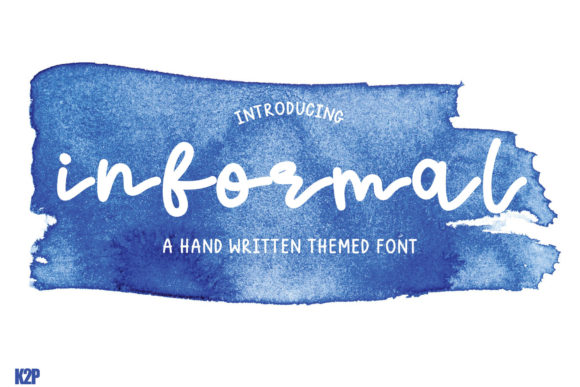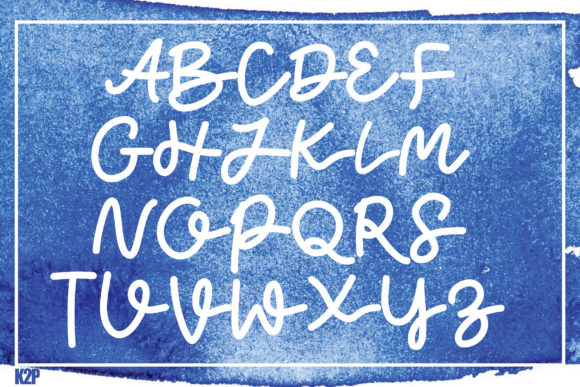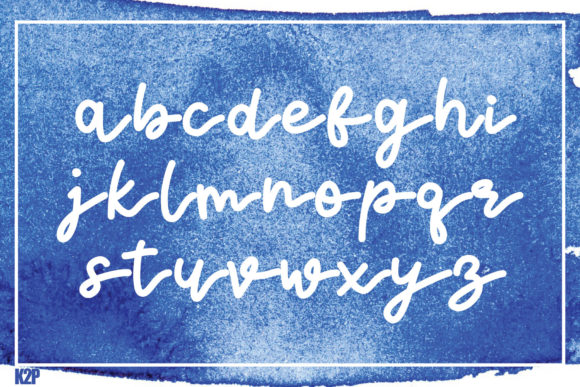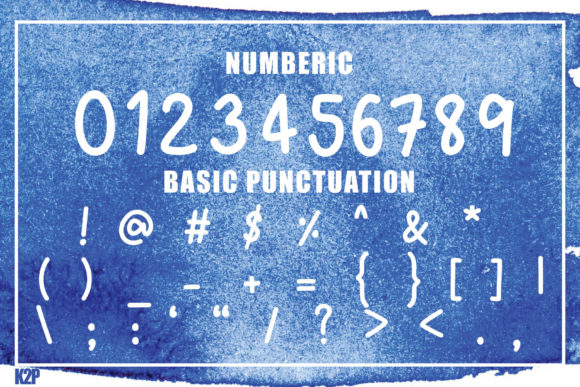
Informal Font
About Informal Font
Informal is a simple and casual handwritten font. This adaptable font will look great on a variety of design ideas. It will add a fun and friendly touch to each of your projects!